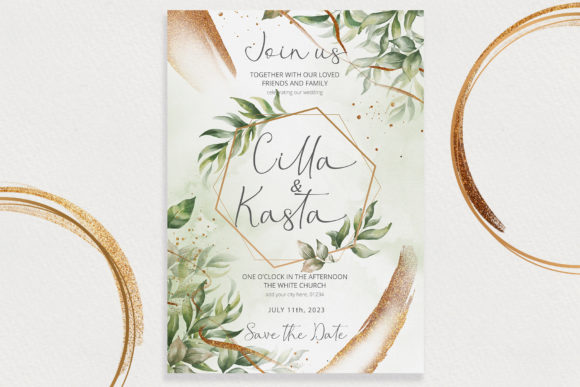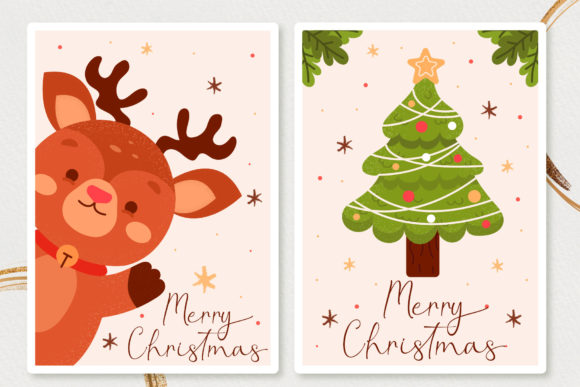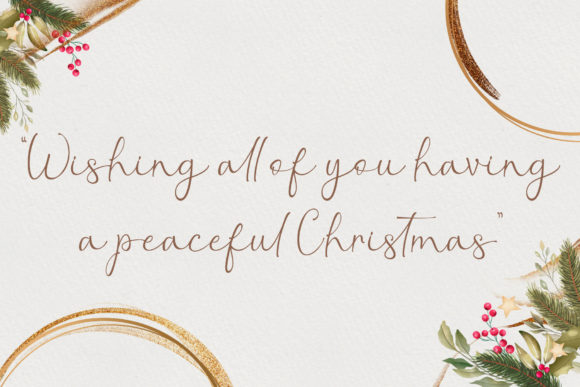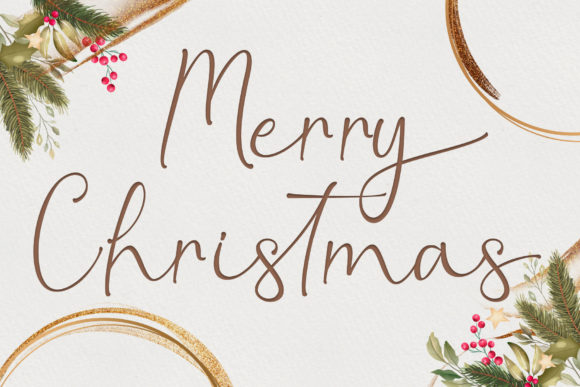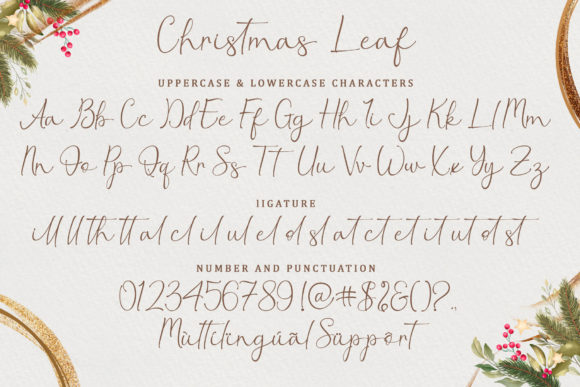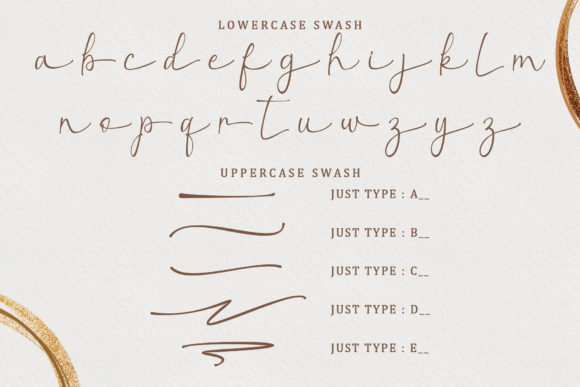
Introducing Christmas Leaf Font: A Charming Script Font for the Holiday Season
Are you looking for a font that captures the magic and whimsy of the holiday season? Look no further than Christmas Leaf Font, a lovely script font that features charming, playful characters that seem to dance along the baseline. With its unique and festive design, Christmas Leaf is the perfect addition to any design project, from holiday cards and invitations to craft projects and digital creations.
What Makes Christmas Leaf Font So Special?
Christmas Leaf Font is a beautifully designed script font that boasts a range of charming features that make it perfect for a variety of creative projects. Here are just a few reasons why you’ll love working with Christmas Leaf:
- Charming, playful characters: Each character in Christmas Leaf has been carefully crafted to bring a sense of joy and playfulness to your designs. From the swooping curves of the letters to the dancing baseline, every detail has been considered to create a font that’s both fun and elegant.
- PUA encoded for easy access: Christmas Leaf Font is PUA (Private Use Area) encoded, which means that you can access all of the glyphs and swashes with ease. This makes it simple to add flourishes and decorative touches to your designs, taking them to the next level.
- Perfect for a range of projects: Whether you’re working on holiday cards, invitations, craft projects, or digital creations, Christmas Leaf Font is the perfect choice. Its versatility and charm make it suitable for a wide range of applications, from formal to informal.
How to Use Christmas Leaf Font in Your Designs
Using Christmas Leaf Font in your designs is easy, and there are countless ways to incorporate it into your creative projects. Here are a few ideas to get you started:
- Holiday cards and invitations: Add a touch of festive charm to your holiday cards and invitations with Christmas Leaf Font. Use it to create beautiful, one-of-a-kind designs that will make your loved ones feel special.
- Craft projects: If you’re a crafter, you’ll love working with Christmas Leaf Font. Use it to add decorative touches to your projects, from scrapbooking and journaling to papercraft and mixed media.
- Digital creations: Christmas Leaf Font is also perfect for digital creations, from social media graphics and blog posts to digital invitations and more. Its unique and festive design is sure to make your digital creations stand out.
Tips for Getting the Most Out of Christmas Leaf Font
To get the most out of Christmas Leaf Font, here are a few tips to keep in mind:
- Experiment with different sizes and colors: Don’t be afraid to experiment with different sizes and colors when using Christmas Leaf Font. Its playful design looks great in a range of sizes, from small and delicate to large and bold.
- Combine with other fonts: Christmas Leaf Font pairs beautifully with other fonts, so don’t be afraid to combine it with your favorite fonts to create unique and interesting designs.
- Use the glyphs and swashes: Take advantage of the PUA encoding in Christmas Leaf Font by using the glyphs and swashes to add decorative touches to your designs. This will help take your designs to the next level and add an extra layer of interest.
| Font Name | Christmas Leaf Font |
| Author | Sakha Design |